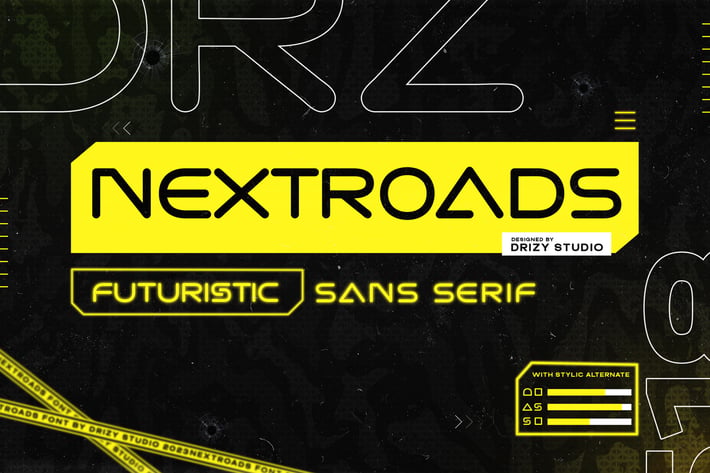
Nextroads - Sans Serif Futuristic Font
Nextroads – Sans Serif Futuristic Font
Nextroads – Sans Serif Futuristic Font from Drizy Studio. Offering all the styles you need for your projects.
Nextroads features:
Punctuation & Numbers
Alternates